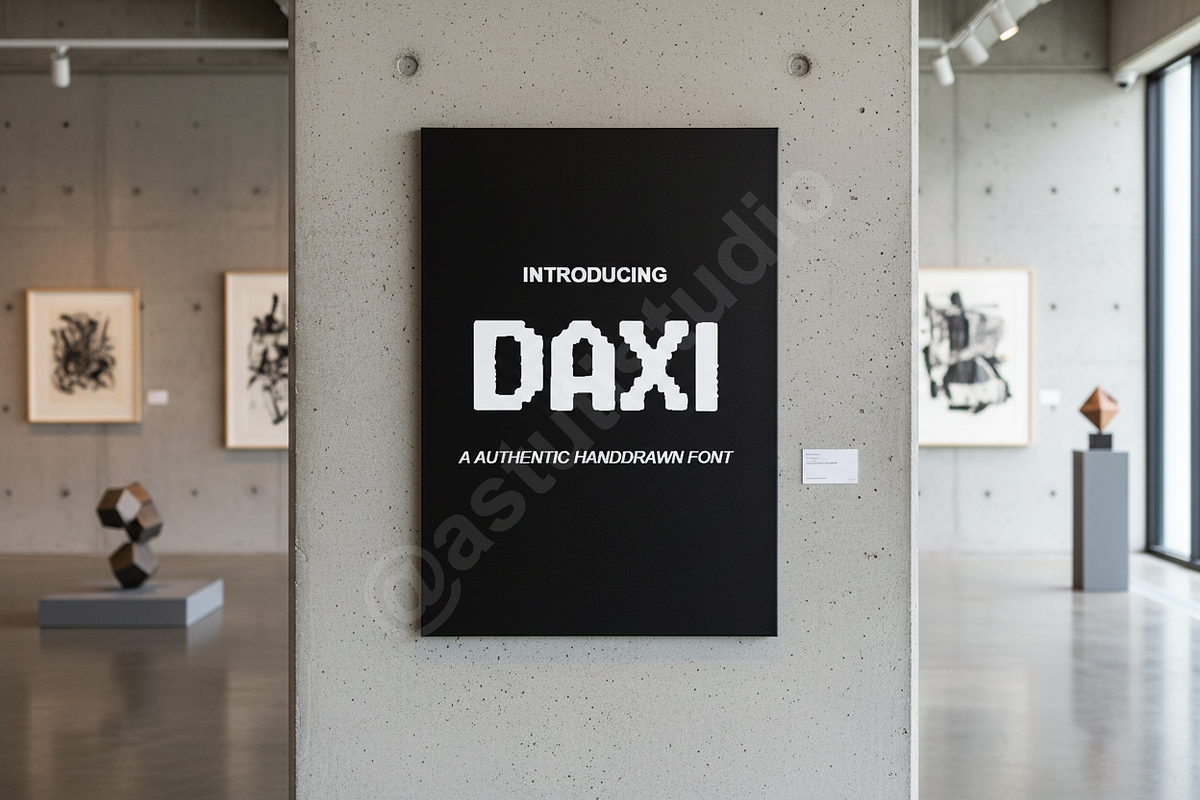
Daxi - Modern Elegant Display Serif
Introducing Daxi, a meticulously crafted modern serif font designed for visual impact and refined elegance. Daxi captures the essence of minimalist luxury and timeless sophistication, making it the definitive choice for brands seeking a prestigious, high-end presence. Its balanced curves and sharp terminals create a compelling texture, ensuring your message is delivered with undeniable clarity and style.
APPLICATIONS
Daxi is engineered for versatility across premium visual environments. It is perfectly suited for:
- Luxury and fashion branding
- Sophisticated editorial layouts (magazines, books)
- High-impact social media and digital advertising
- Premium packaging and product labeling
- Elegant wedding stationery and invitations
- Versatile Application: Ideal for both large display headlines and smaller body text.
- Full set of uppercase, lowercase, numerals, punctuation, and essential symbols.